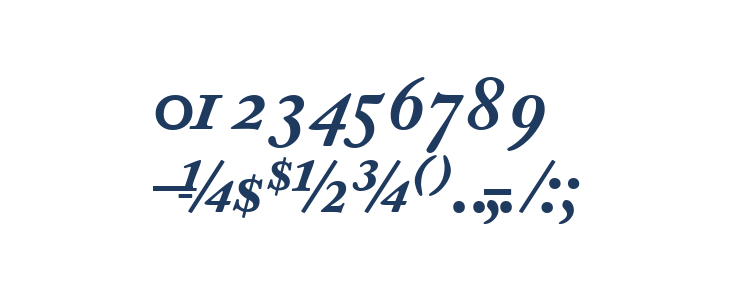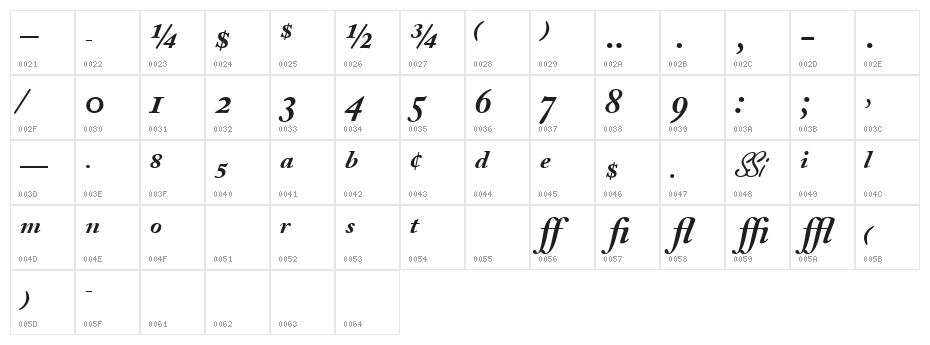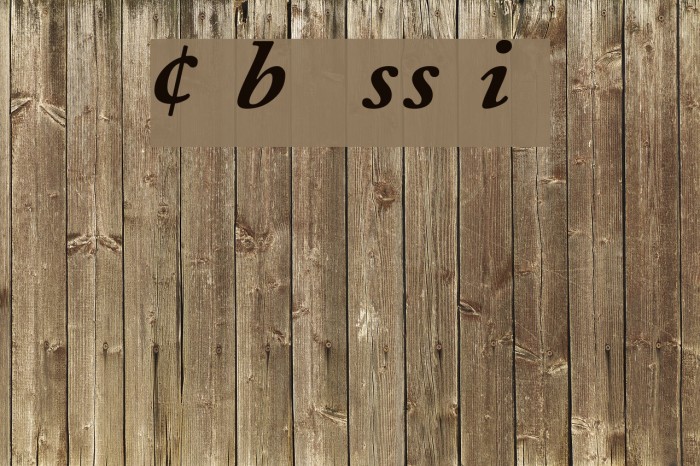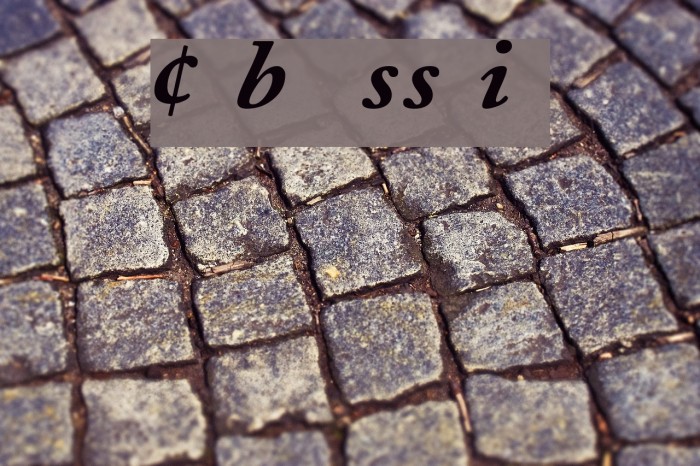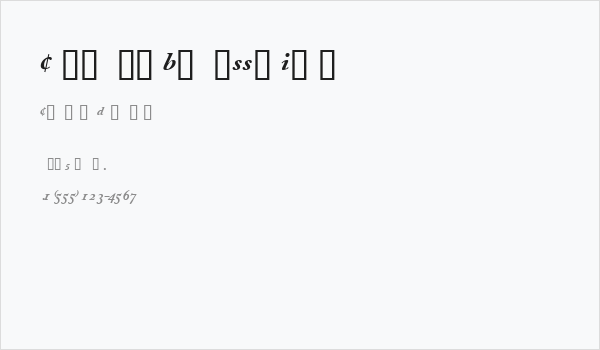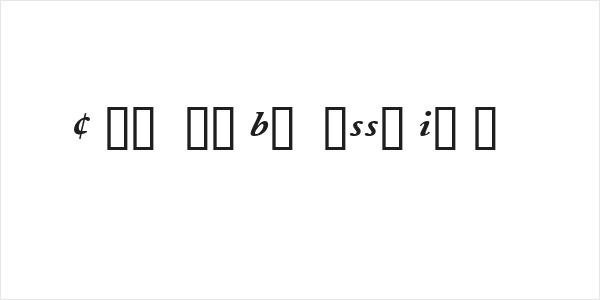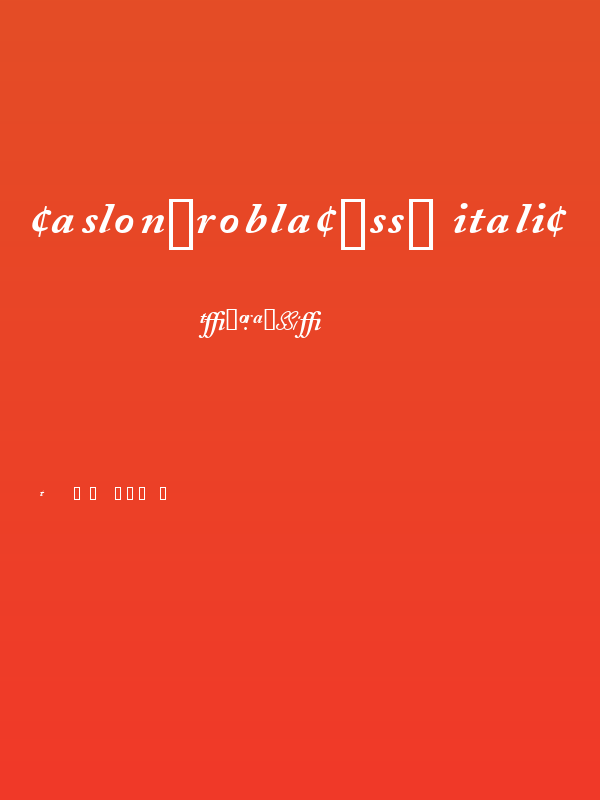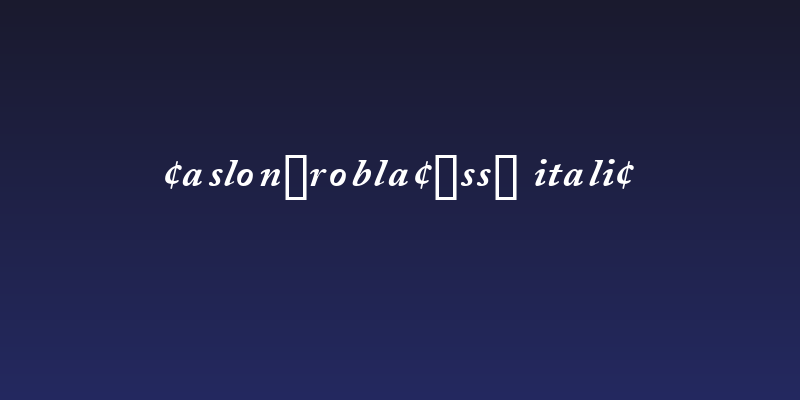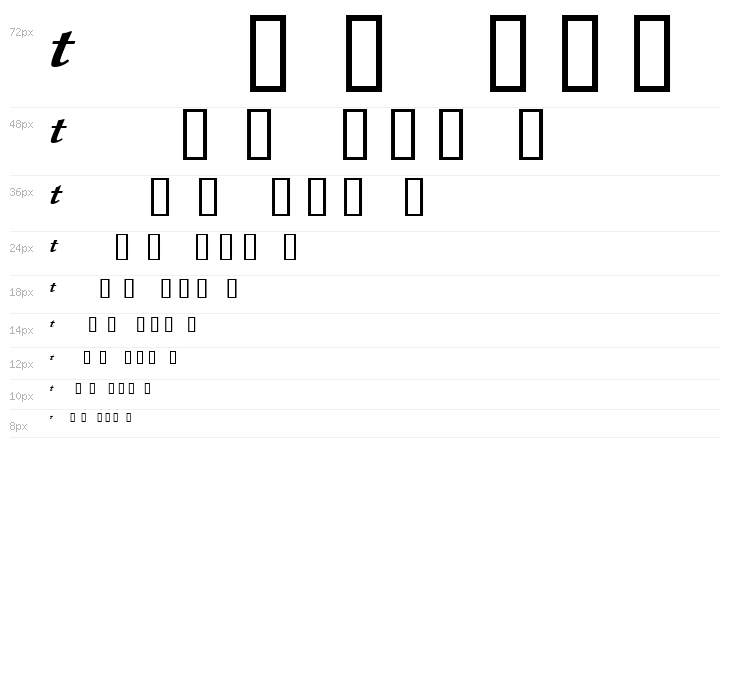
CaslonProBlackSSK Italic Font
CaslonProBlackSSK Italic Description
This font exhibits a classic and elegant style with a strong emphasis on traditional serif elements. The italicized form adds a sense of sophistication and fluidity, making it suitable for formal and decorative purposes. The characters are well-defined with moderate contrast between thick and thin strokes, enhancing readability while maintaining an artistic flair. The numerals and special characters are designed to complement the overall aesthetic, ensuring consistency across different uses. The font's structure is both timeless and versatile, ideal for projects that require a touch of refinement.